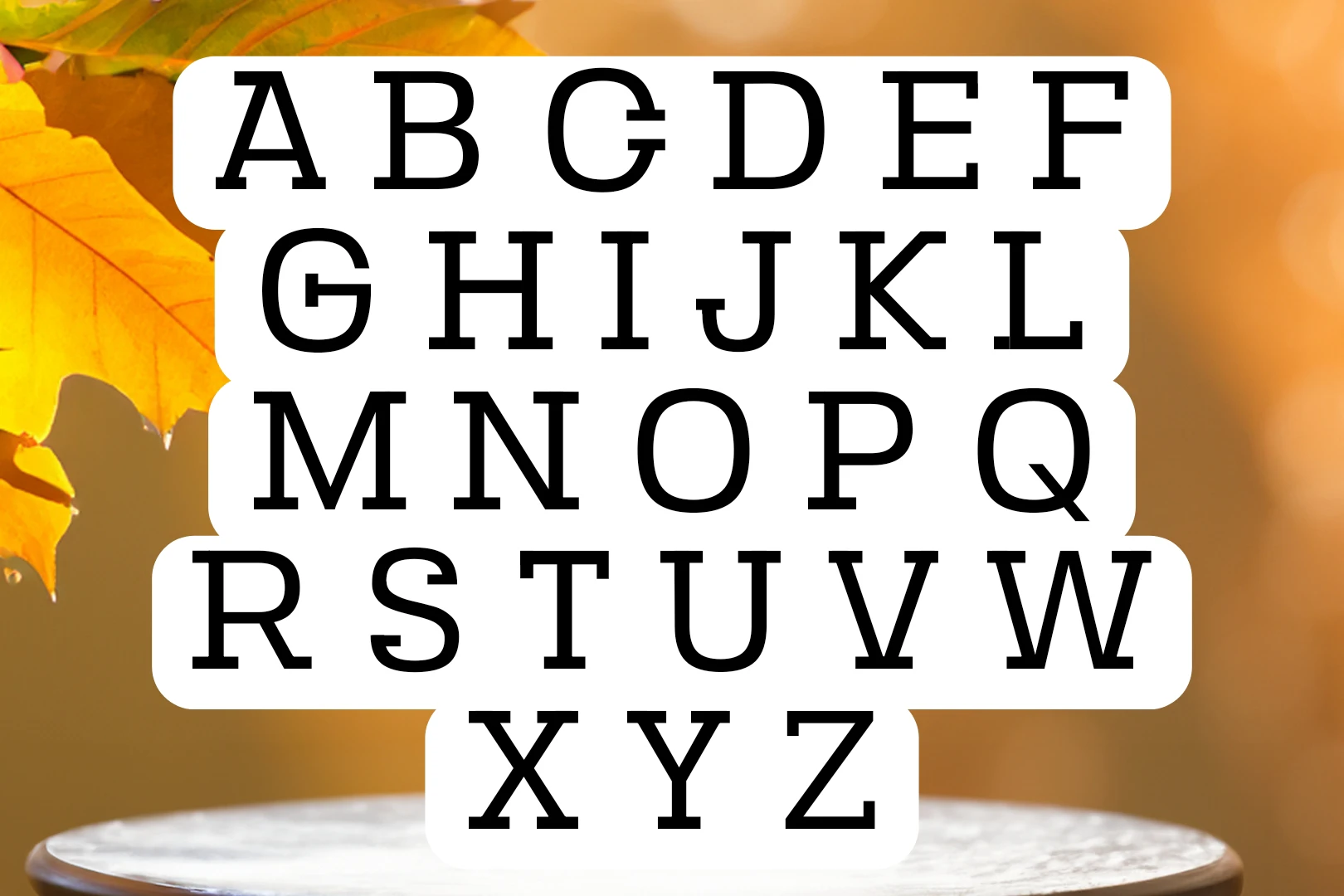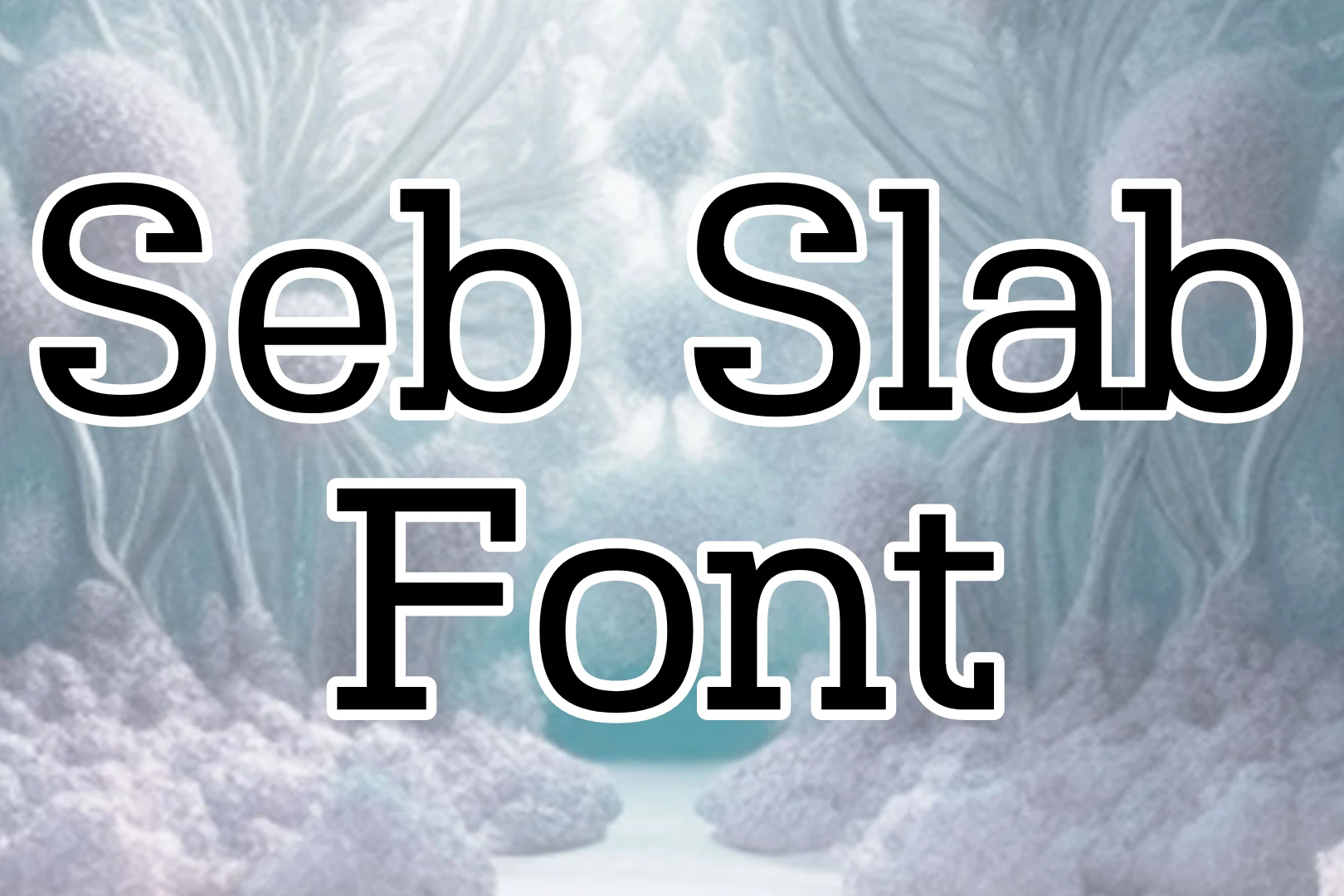
In the world of typography, finding the perfect font can make all the difference in your design projects. The Seb Slab font is one such typeface that combines elegance with versatility, making it a favorite among designers.
It is a slab serif typeface known for its strong and sturdy appearance. tCreated and shared by sebgarrydesign.
This font has gained popularity for its readability and classic charm. It is aIt features thick, block-like serifs that give it a distinctive look, making it ideal for headlines, posters, and other design elements that require a bold statement.
Usage of Seb Slab Font
This unique texture is ideal for use in both digital and print media, thanks to its robust and readable design. For web content, Seb Slab enhances readability and adds a professional touch to blog posts, online articles, and other website content.
Its clear and strong serifs ensure that the text is easy to read on screens of all sizes, making it perfect for maintaining user engagement and delivering a polished appearance.
Font Family of Seb Slab Font
- Seb Slab Regular
- Seb Slab Bold
What are the best use Cases for the Seb Slab font?
It is best used for headlines, posters, branding, and other design projects that require a bold and readable typeface. Its classic and sturdy design makes it versatile for various applications.
What font styles are available in the Seb Slab texture family?
This font family typically includes styles such as regular and bold. However, the availability of different styles may vary depending on the source.